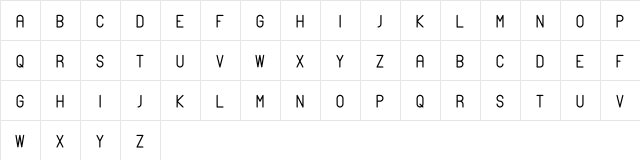
THEWELL Regular
Design Context for THEWELL Typeface
THEWELL offers clean, dependable letterforms without strong stylistic allegiance, making it a practical choice for designers who need flexibility.